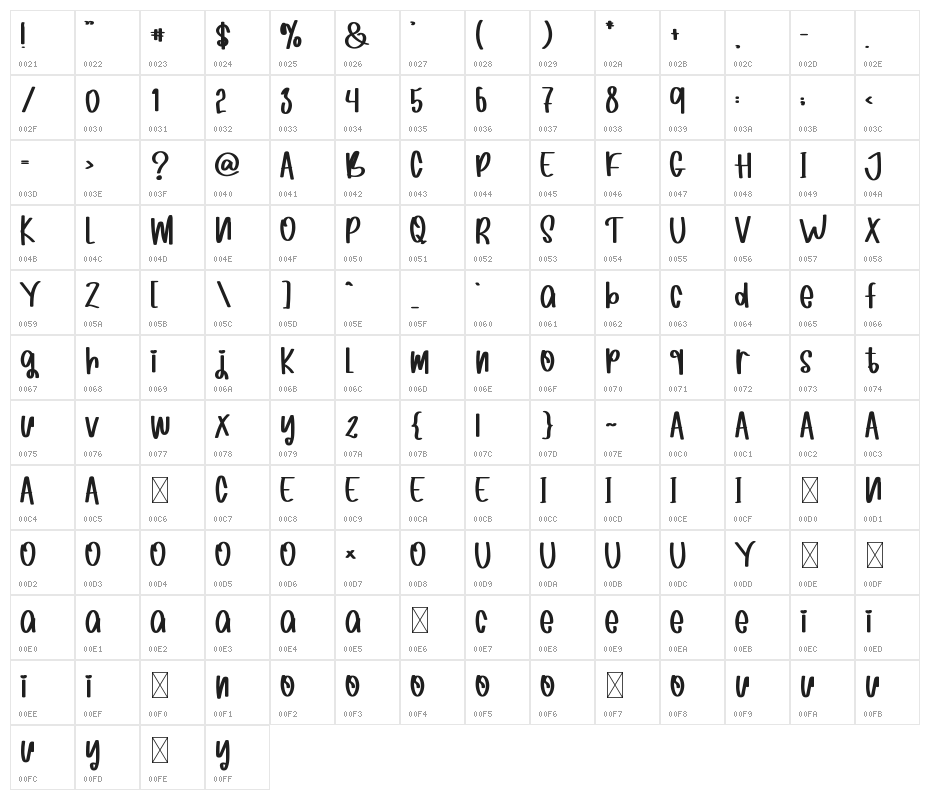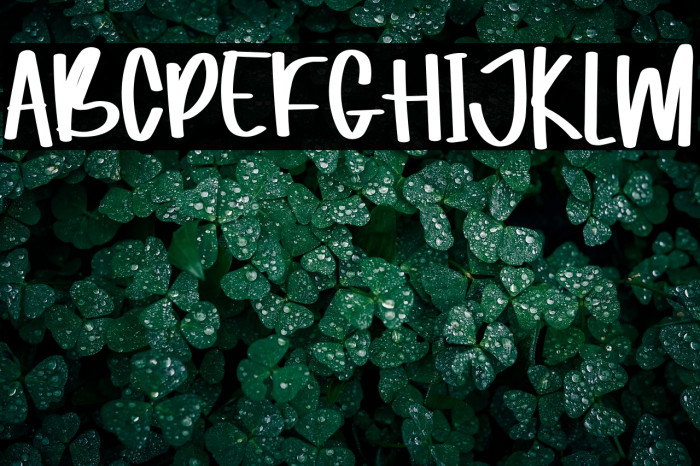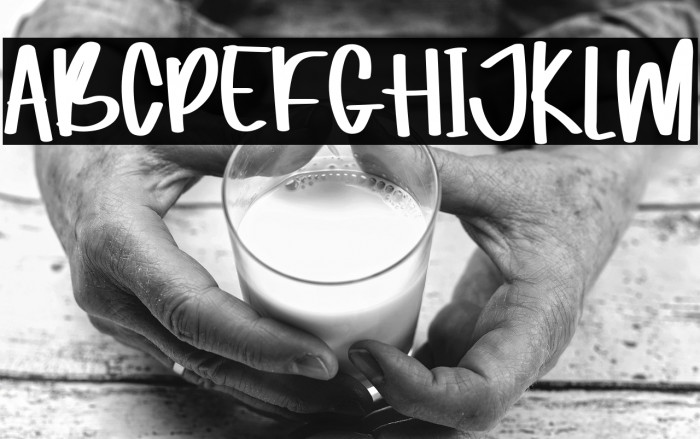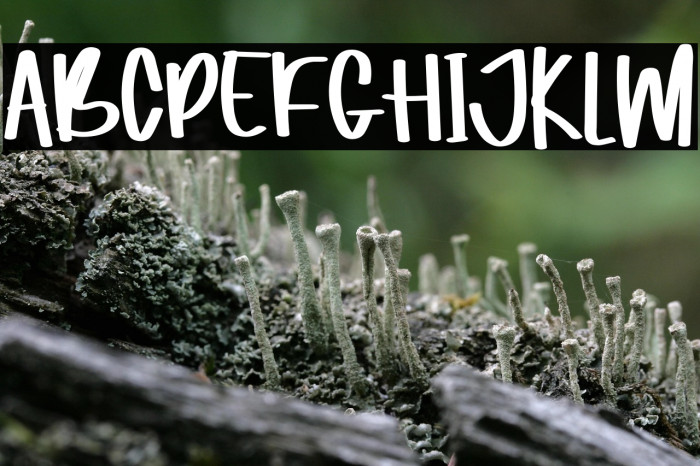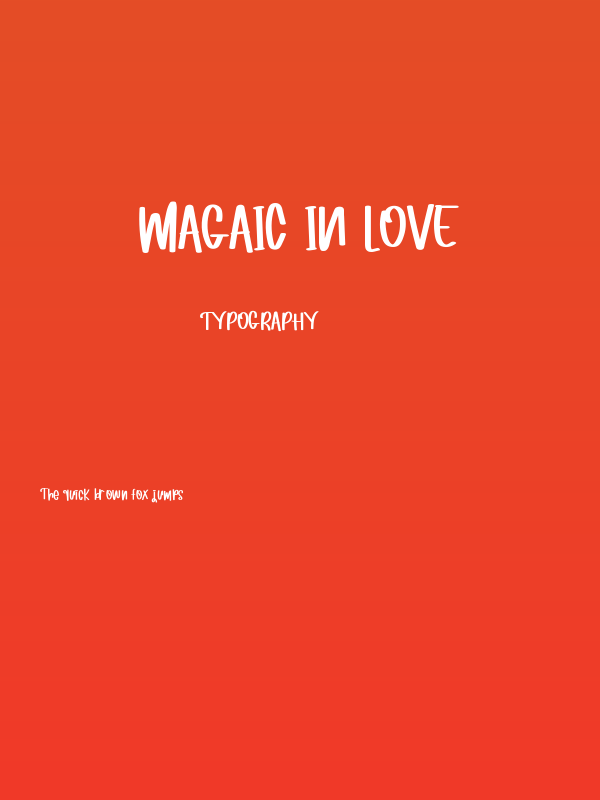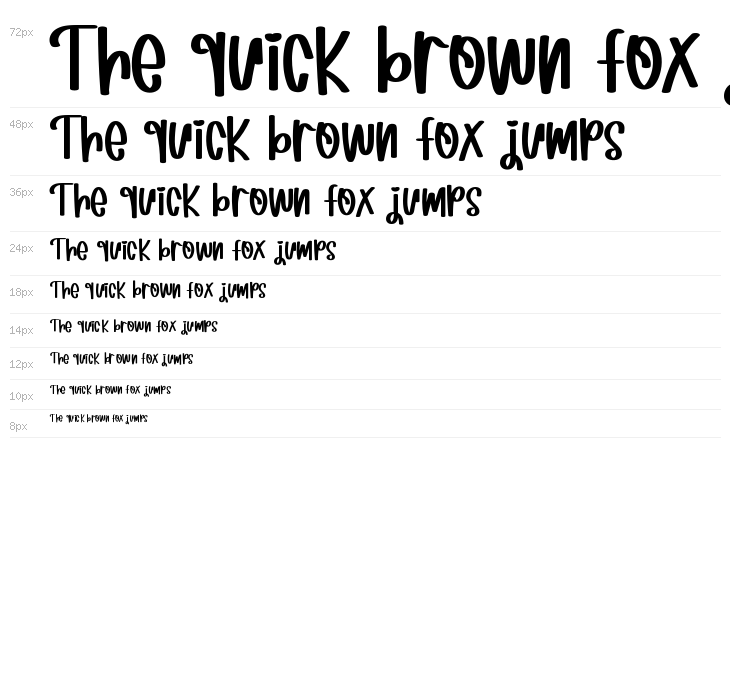
Magaic In Love Font
Magaic In Love Description
This playful and whimsical font features a handwritten style with bold, rounded strokes. The letters are slightly slanted, adding a dynamic and lively feel. The uppercase characters are tall and expressive, while the lowercase letters maintain a consistent flow with unique loops and curves. The numbers are bold and easy to read, complementing the overall style. Special characters are creatively designed, maintaining the font's playful essence. This font is perfect for projects that require a fun and informal touch.
| Proposed Projects | Ideal for greeting cards, children's books, playful branding, and social media graphics. |